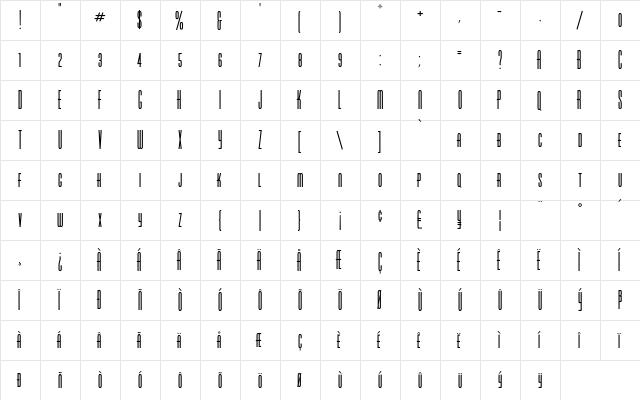
VarickaSC Regular
| Version | Version 1.000 02/13/2010 Based on 'Varick'. From "Decorative Condensed Alphabets", by Dan Solo, Page 94. It is similar to Red Rooster's Triple Gothic Condensed, but the Solo book's font has different features and shapes. |
Design Context for VarickaSC Typeface
VarickaSC offers clean, dependable letterforms without strong stylistic allegiance, making it a practical choice for designers who need flexibility.